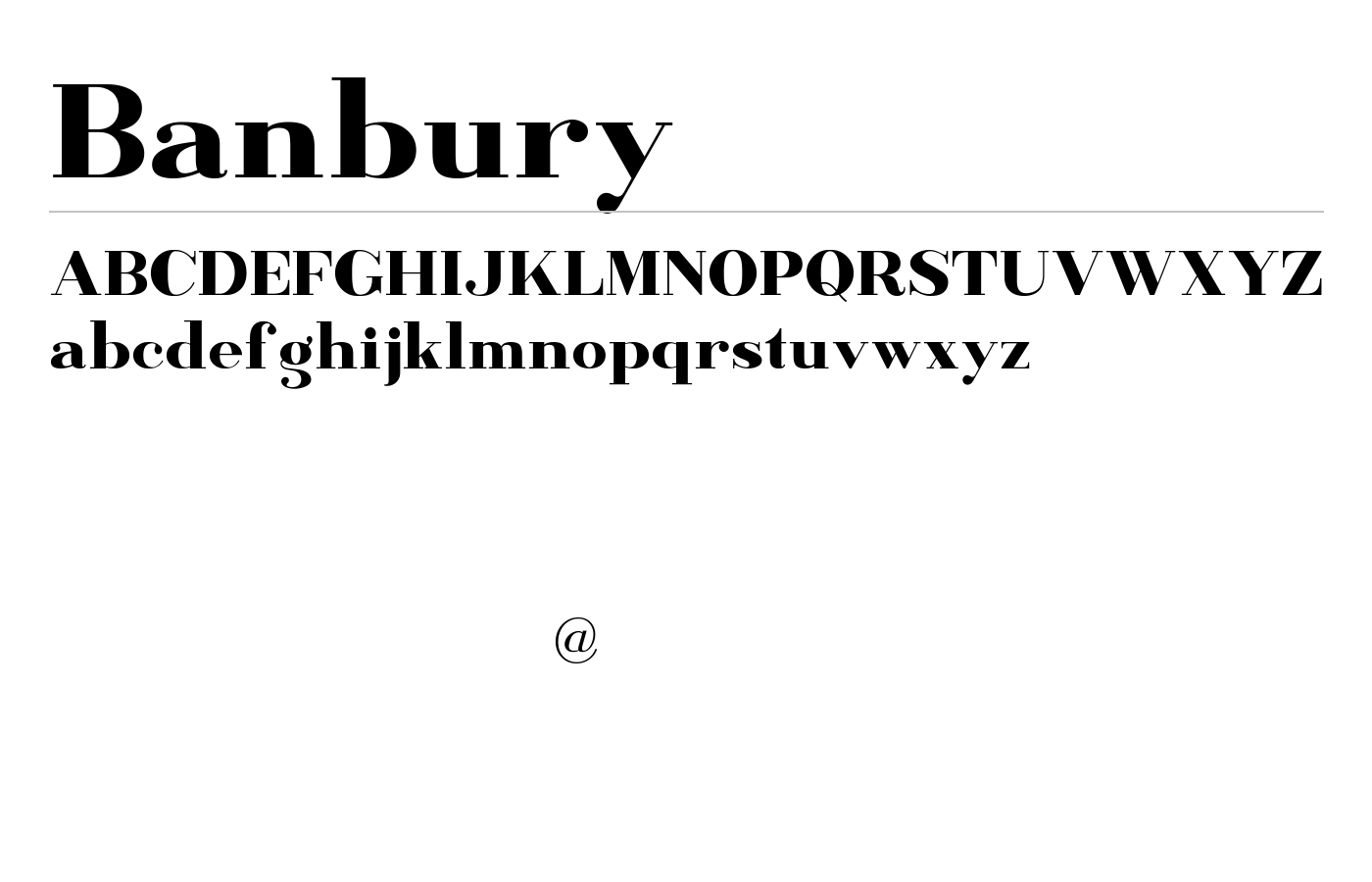
Banbury is a bold, modern serif font with strong contrast between thick and thin strokes, featuring classic bracketed serifs and elegant, refined letterforms. Its sturdy yet sophisticated appearance makes it ideal for luxury branding, editorial headlines, and high-impact logos where a timeless and upscale look is desired. This font’s balanced design blends traditional serif qualities with contemporary style, perfect for making a confident statement in both print and digital media.
Banbury Font
About Banbury Font